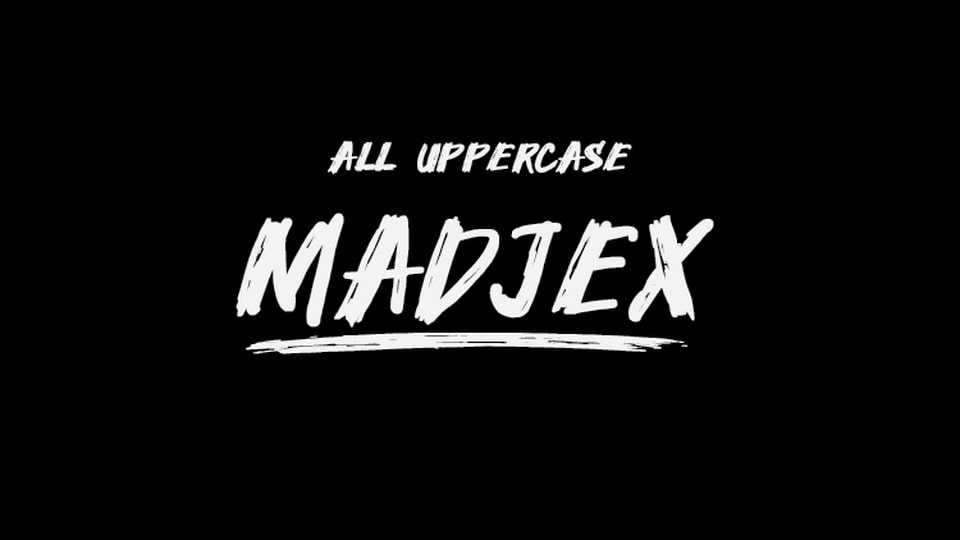
Download Madjex font, a typeface that combines the raw energy of brush strokes with a gritty, textured finish. Madjex font is perfect for designs that need to convey a sense of handmade craftsmanship and rugged charm.
Designer: Linafis Studio